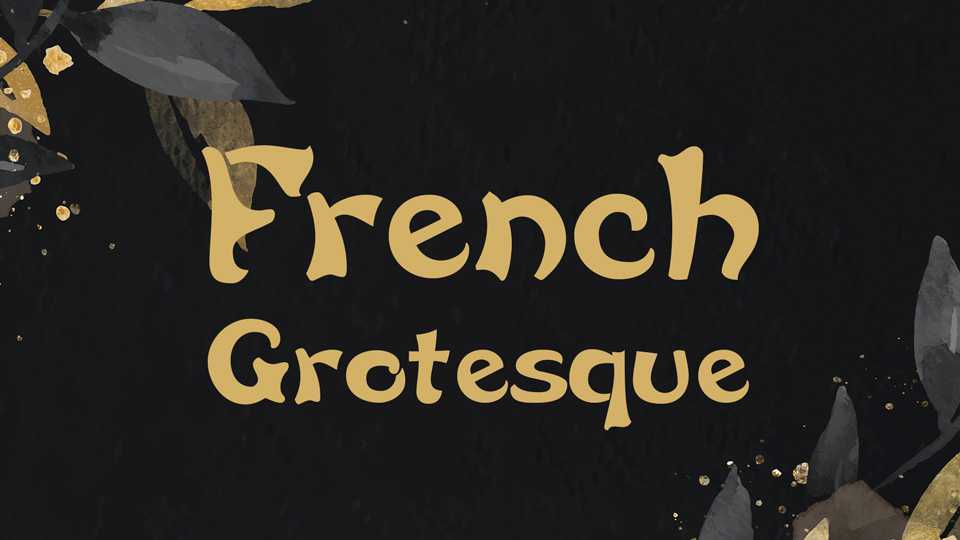
Download French Grotesque font, a fancy vintage typeface with a charming look. French Grotesque is very readable and calls attention to your message.
Designer: Jonathan Paterson